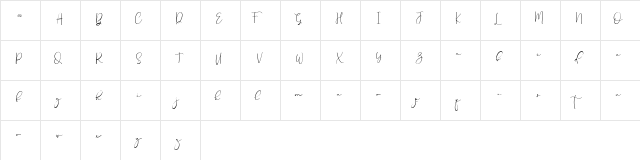
Brittaney Free Regular
| Foundry | MasAnis |
| Designer | Mas Anis |
Design Context for Brittaney Free Typeface
Brittaney Free takes a measured approach to typography — its balanced proportions and neutral character make it a reliable workhorse for both digital and print work.